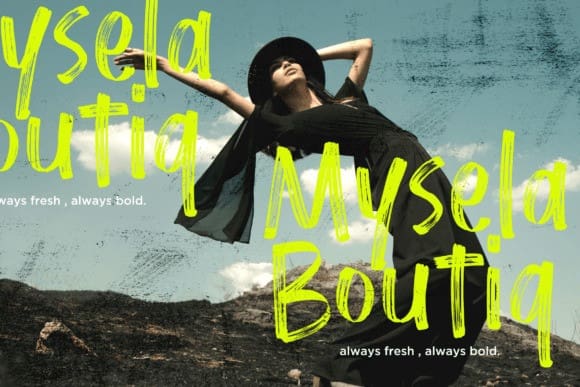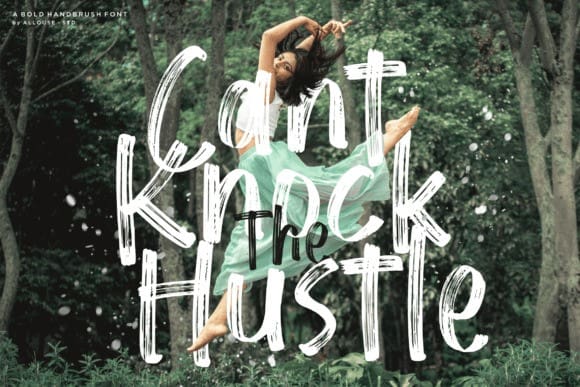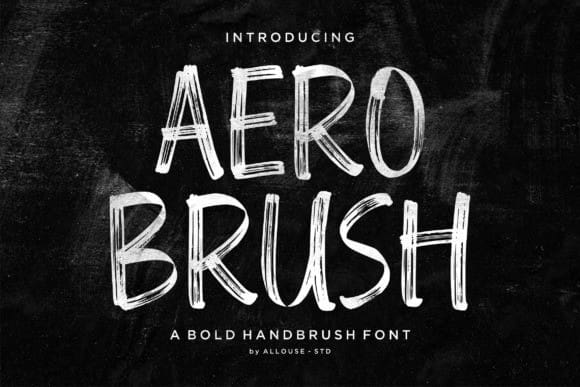
Aero Brush Font
Aero Brush Font is perfect for product packaging, branding project, megazine, social media, wedding, or just used to express words above the background.